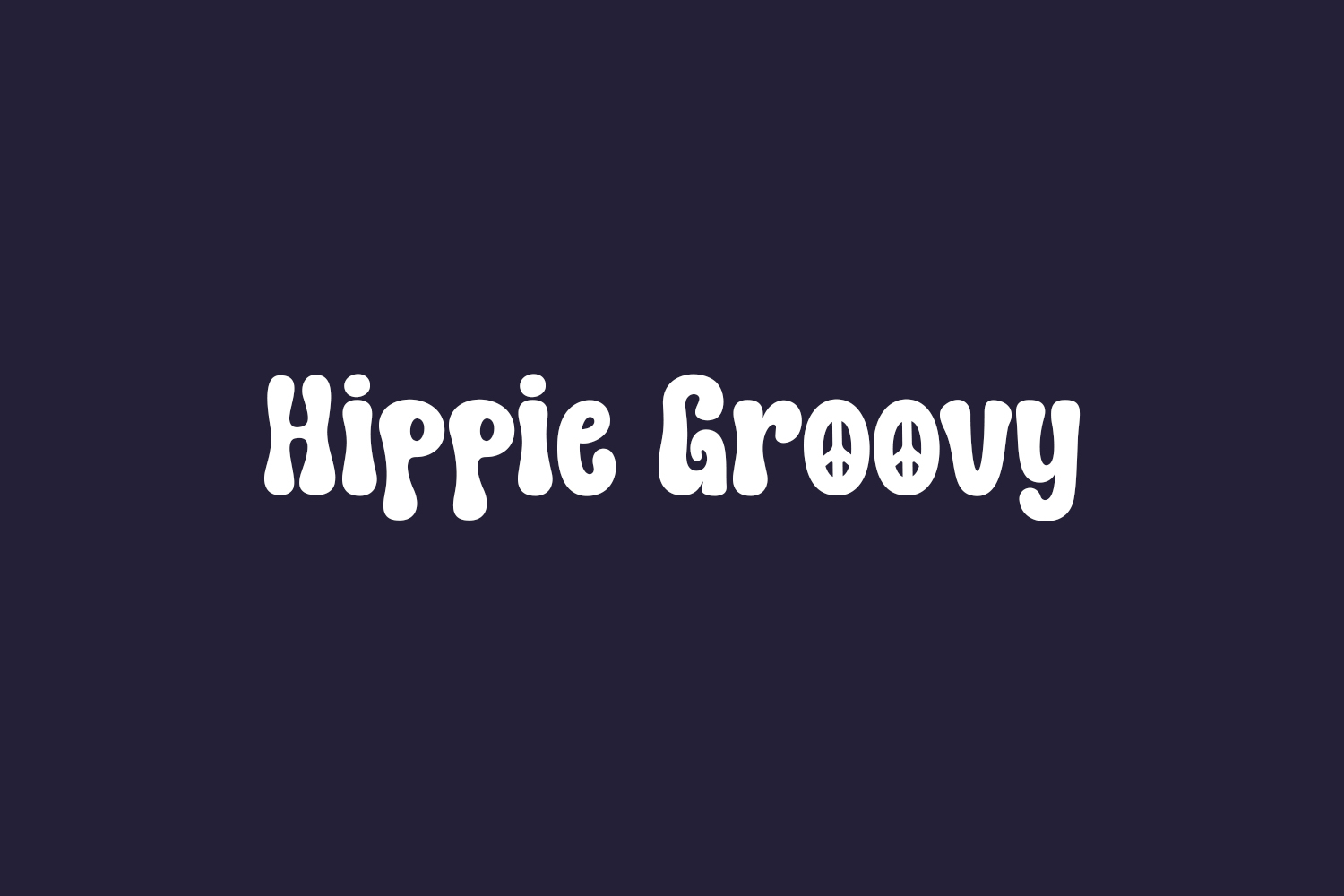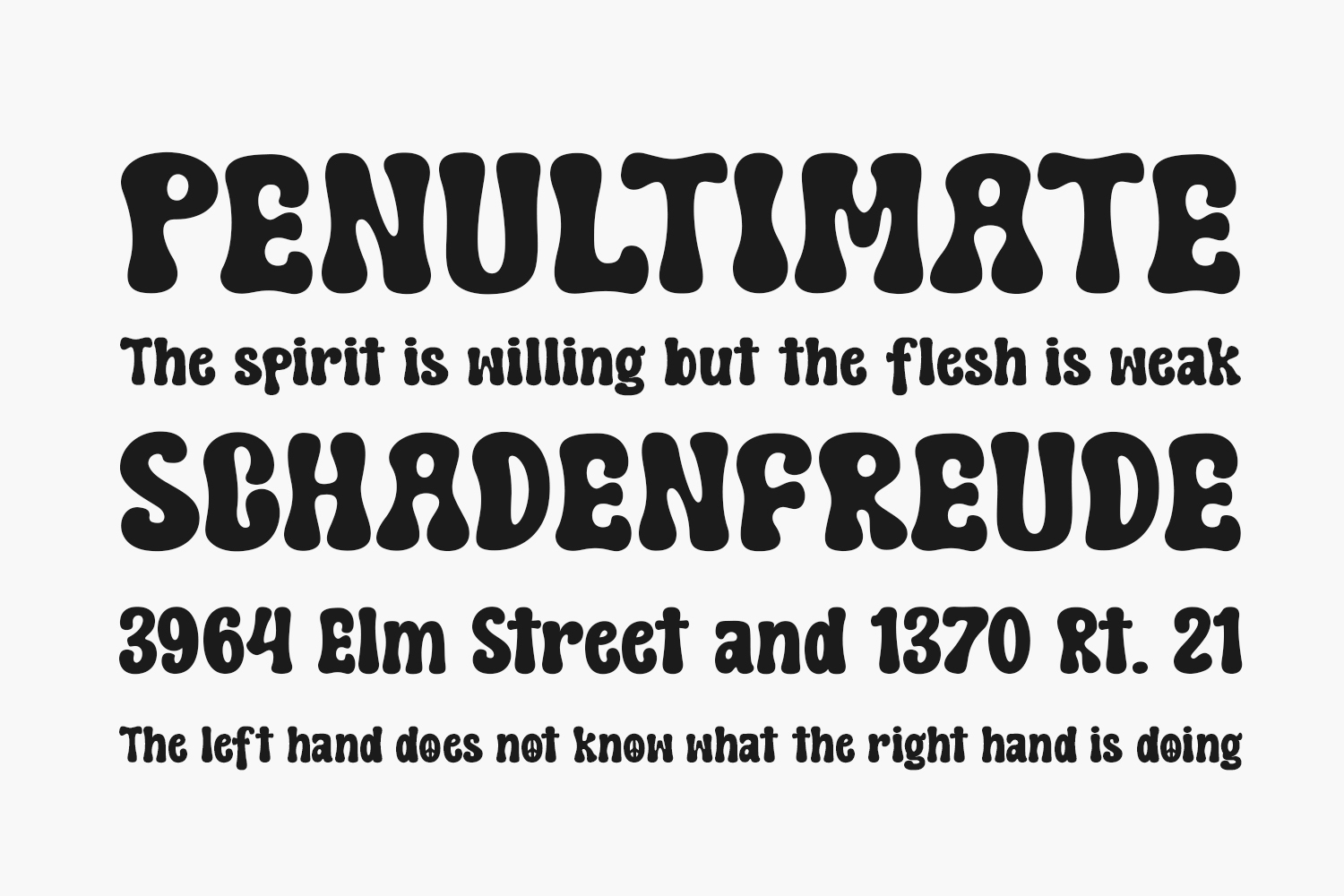
Experience the groovy vibes of Hippie Groovy Free Font, an effortlessly cool display font that embraces the boho-style aesthetic. With its charming letters and delightful hippie-style dingbats, this font is a must-have for anyone looking to create eye-catching designs. Whether you’re designing groovy t-shirts, stickers, cover books, children’s books, or engaging social media posts, Hippie Groovy is the perfect choice. Let your creativity flow and infuse your projects with the captivating energy of this font, ensuring a unique and memorable visual experience for your audience. Hippie Groovy Free Font is free for personal use only. Please purchase the full version for commercial use.